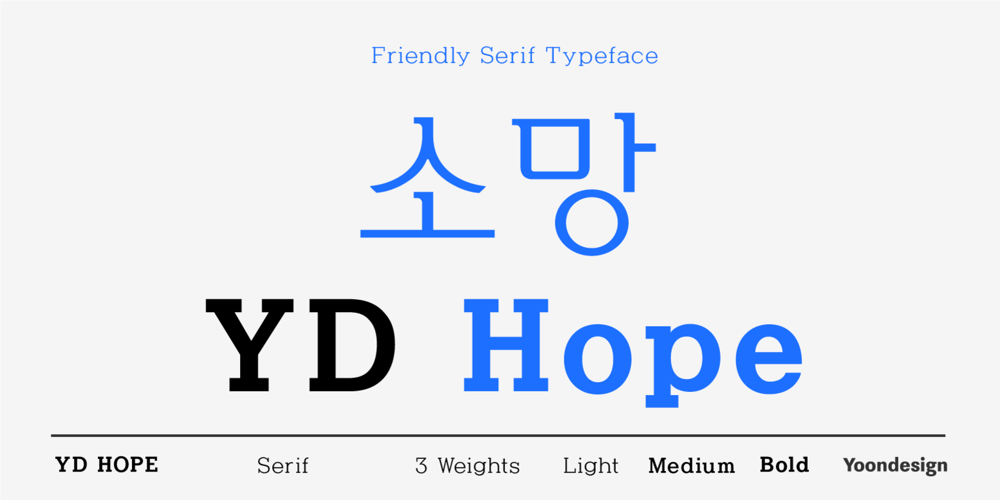
YD Hope Font Family was designed by Yoon Design Team and published by Yoon Design. YD Hope contains 3 styles and family package options. YD Hope Family is a smooth-flowing serif typeface with an air of familiarity. The fonts are informal and friendly at first sight and lend themselves to display settings, however the straight line and soft serif of YD Hope Family also makes it perfect for longer copy. YD Hope Family comes in 3 weights from light to bold.